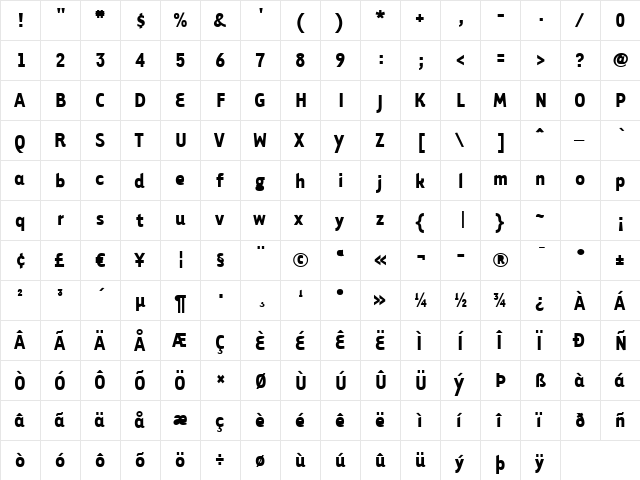
TarzanaNarrow Bold
Design Context for TarzanaNarrow Typeface
TarzanaNarrow offers clean, dependable letterforms without strong stylistic allegiance, making it a practical choice for designers who need flexibility. Its bold stroke weight gives it real presence on the page. Its narrow stance lets it pack a punch even in space-constrained designs.
Pro Tip: Use TarzanaNarrow in both headline and body roles to test its range before committing to a single application.